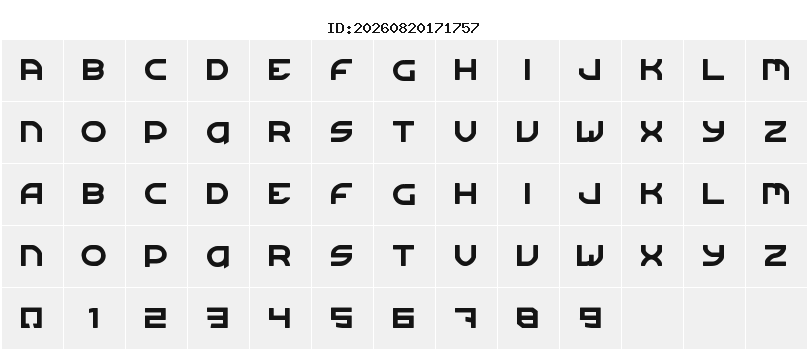
Sergeant TechnicFont 2 Preview
• Font Name: Sergeant TechnicFont 2
• Full Font Name: Sergeant TechnicFont 2
• Version: Version 1.00 July 11, 2007, initial release
About Sergeant TechnicFont 2.ttf
Sergeant TechnicFont 2.ttf is a modern, elegant sans-serif font designed for ultimate readability and visual harmony. Perfect for branding, headlines, web design, and print materials.